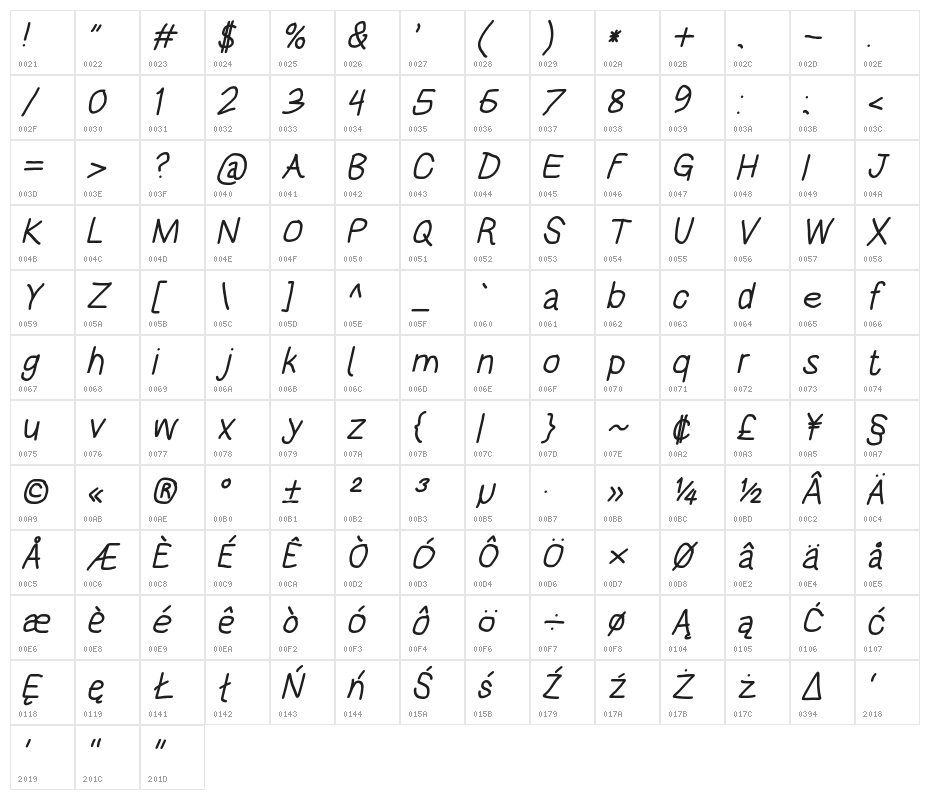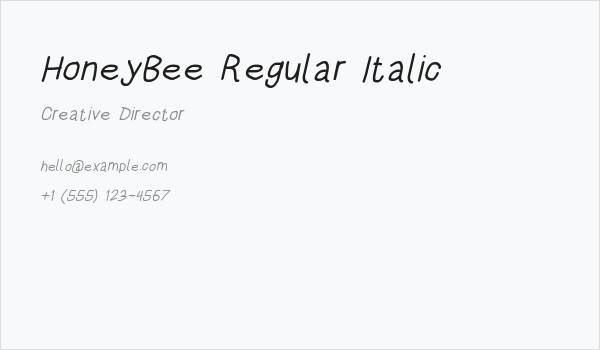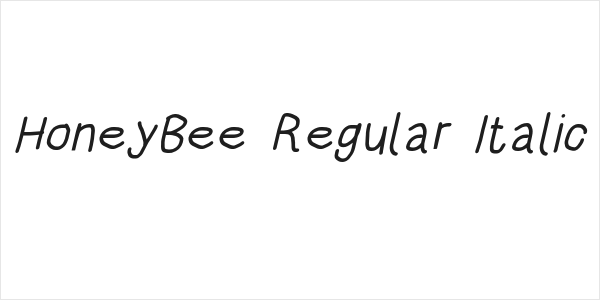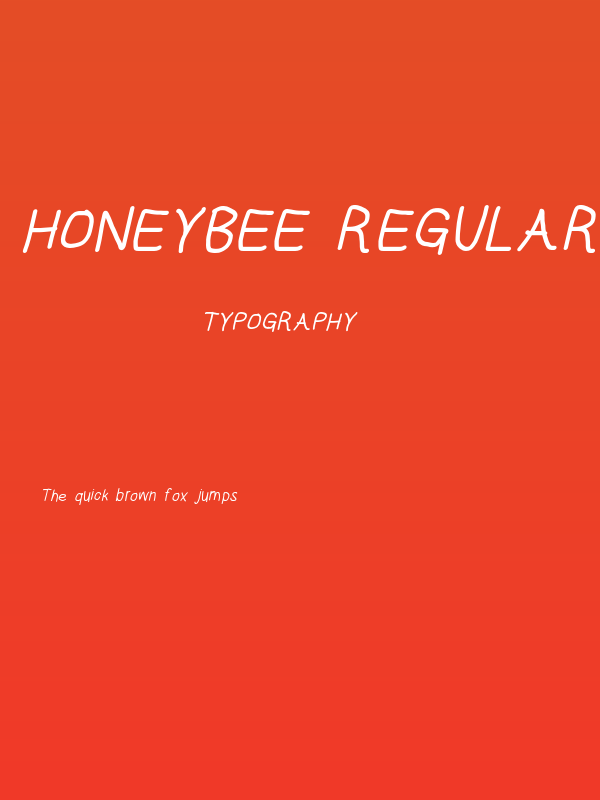
HoneyBee Regular Italic Font
HoneyBee Regular Italic Description
This font exhibits a casual and playful handwritten style, characterized by its smooth, flowing curves and slightly slanted orientation. The letters are well-spaced, providing a clean and readable appearance. The uppercase characters maintain a consistent height, while the lowercase letters have a gentle, rounded form that enhances the font's approachable and friendly feel. The numerals are clear and distinct, matching the overall style of the alphabet. Special characters are included, maintaining the same playful aesthetic. This font is versatile, suitable for a variety of creative projects where a personal touch is desired.
| Proposed Projects | Ideal for greeting cards, invitations, personal branding, and creative projects requiring a friendly touch. |